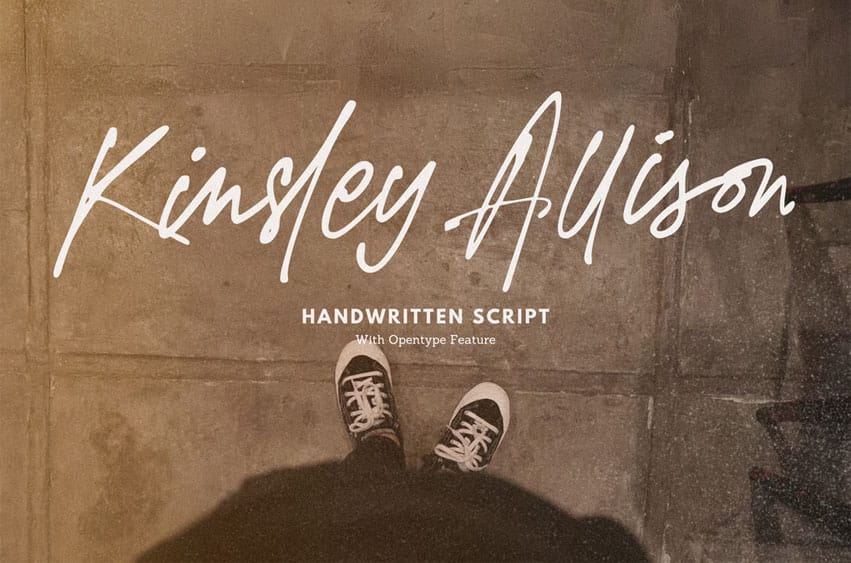
Kinsley Allison Font is new script font embodies the essence of a natural handwriting style.
Designed to convey elegance and organic handwriting, it effortlessly exudes a sense of graceful flow.
- Upper and Lowercase
- OpenType Feature (Ligatures)
- Numeral & Punctuation